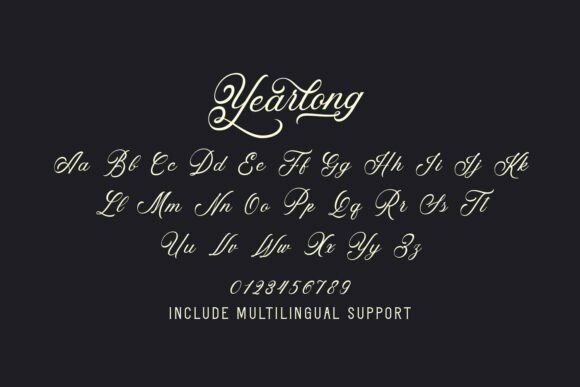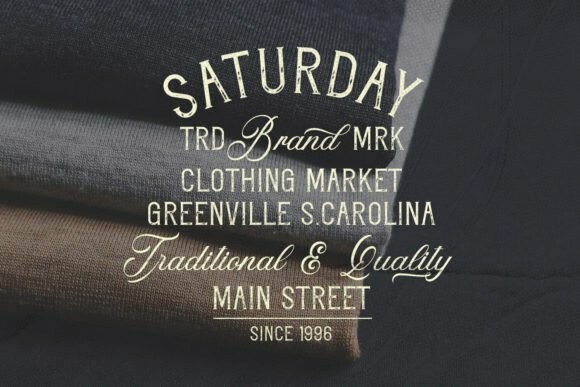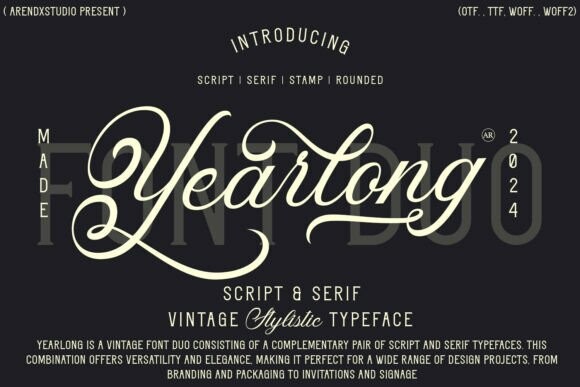
Yearlong Font
Designer: Arendxstudio
Yearlong Font is a vintage font duo consisting of a complementary pair of script and serif typefaces. This combination offers versatility and elegance, making it perfect for a wide range of design projects, from branding and packaging to invitations and signage. The vintage aesthetic of “Yearlong” brings a nostalgic yet timeless appeal to any design.